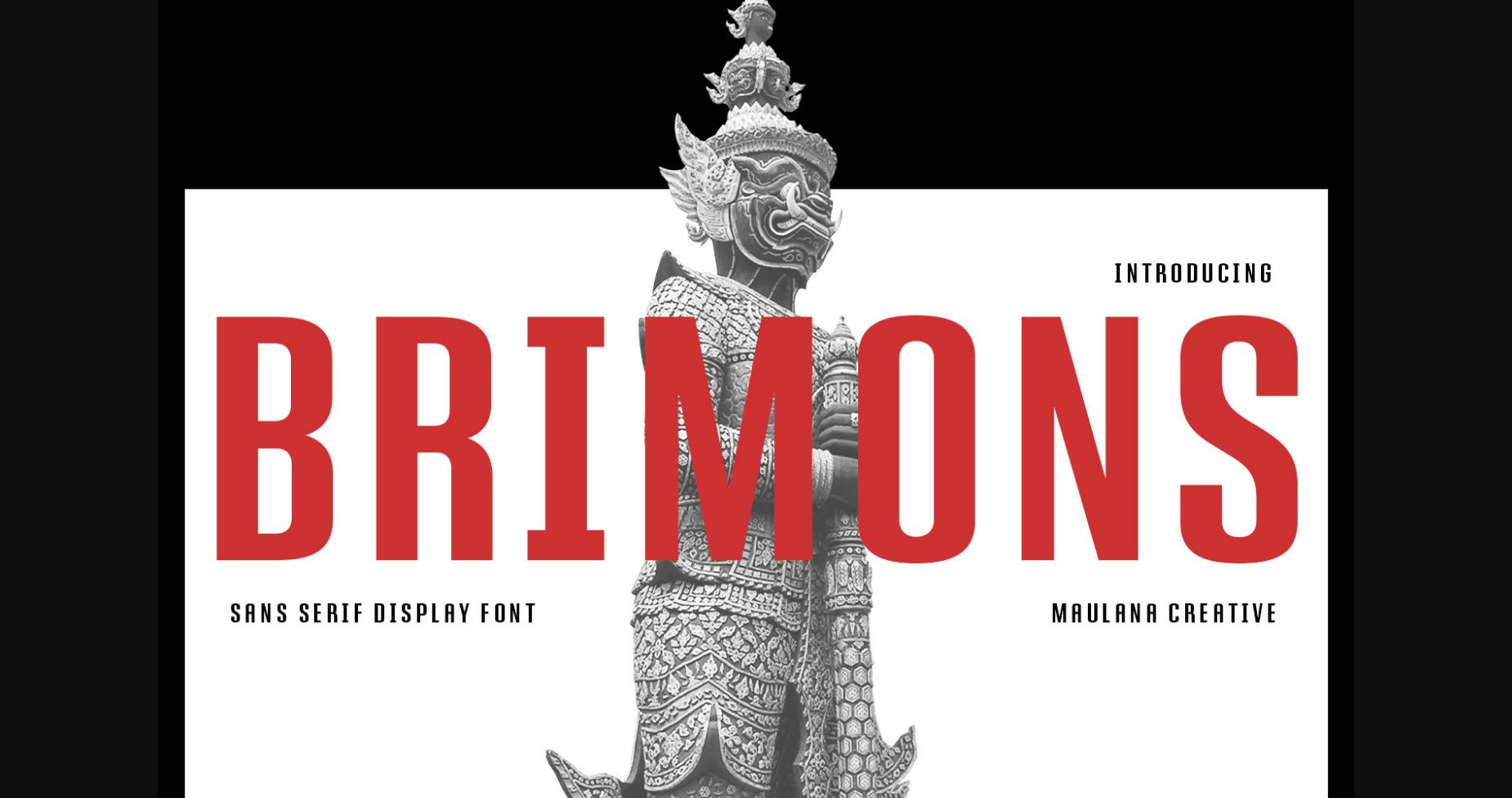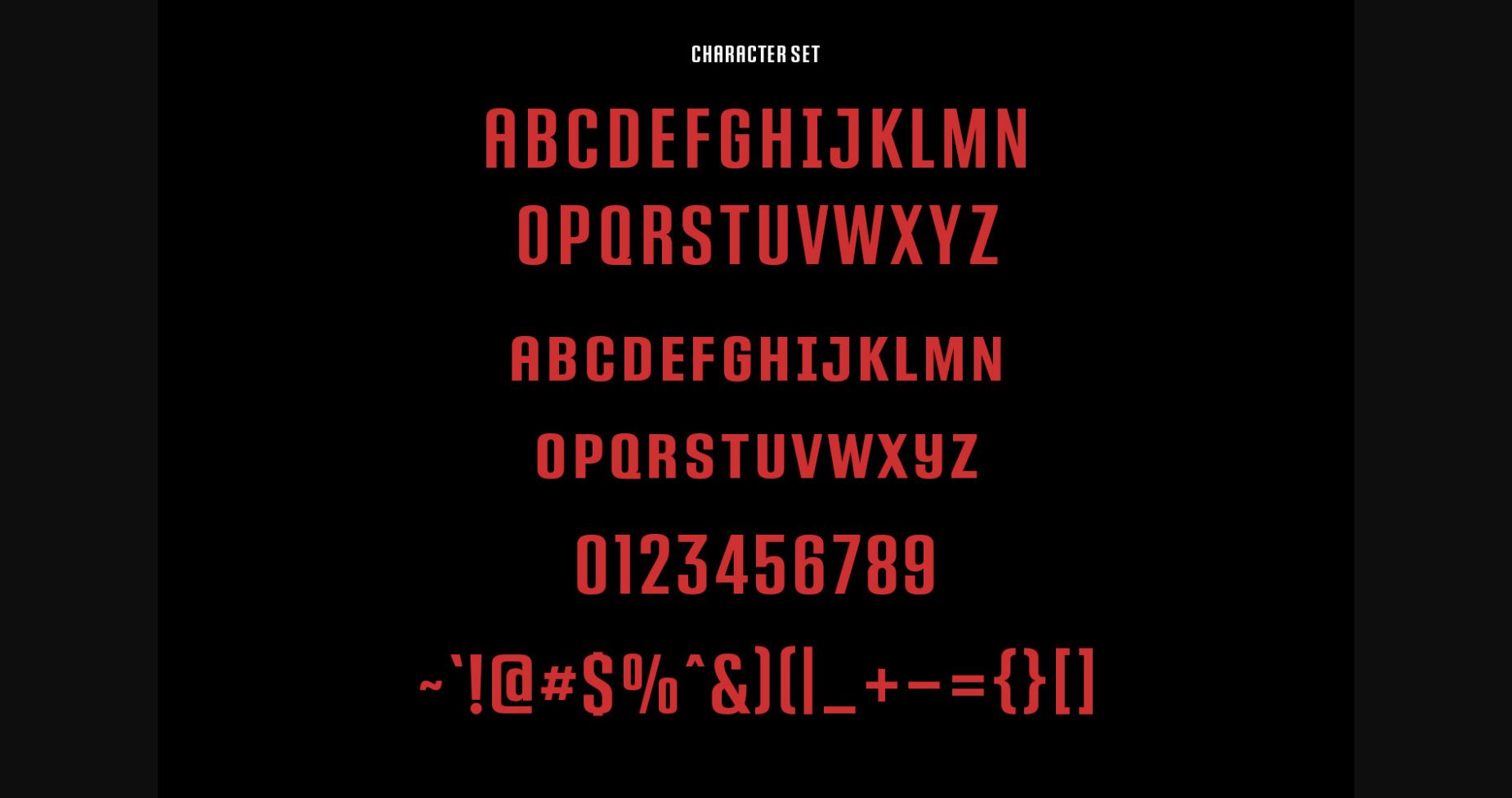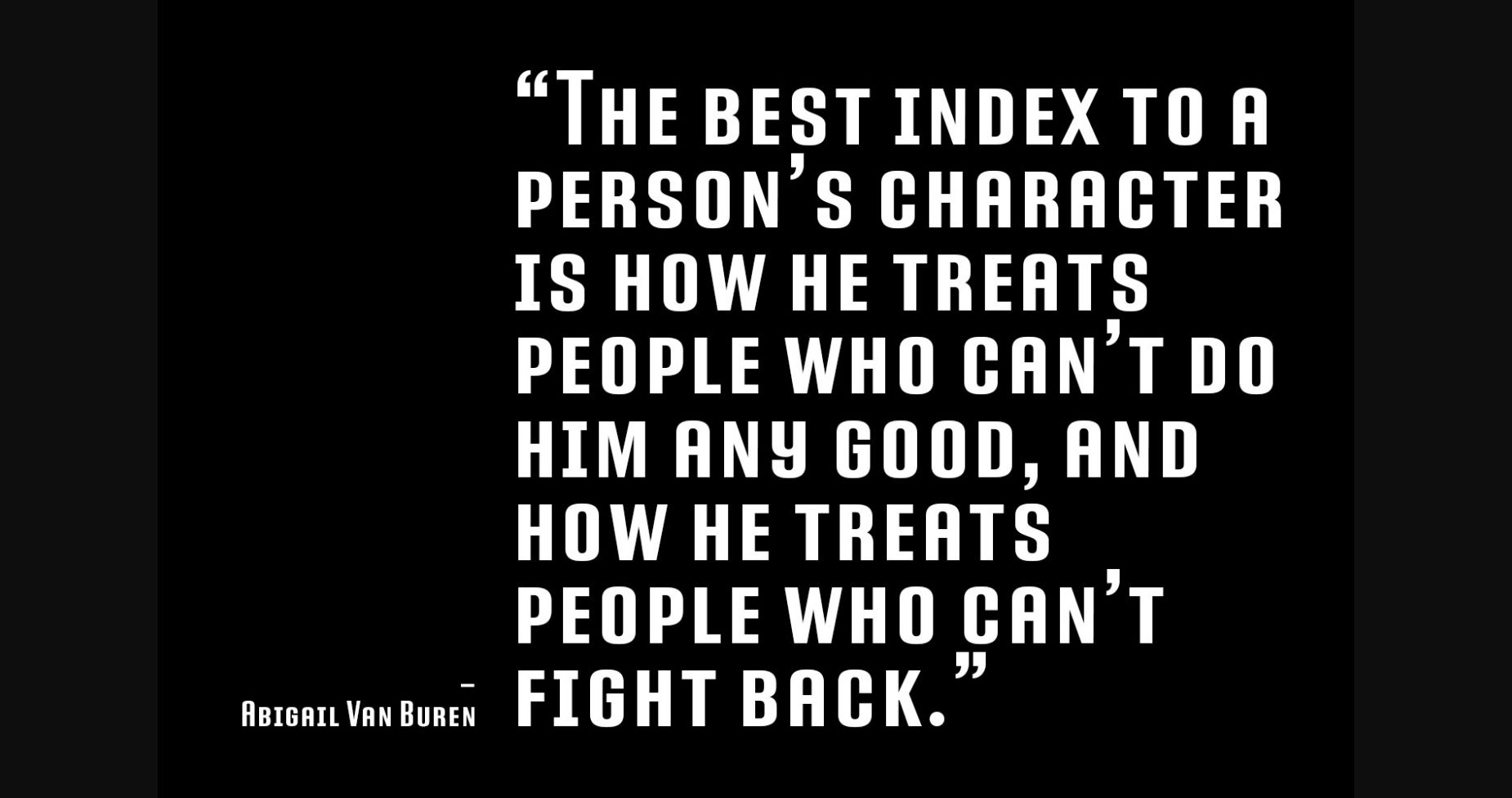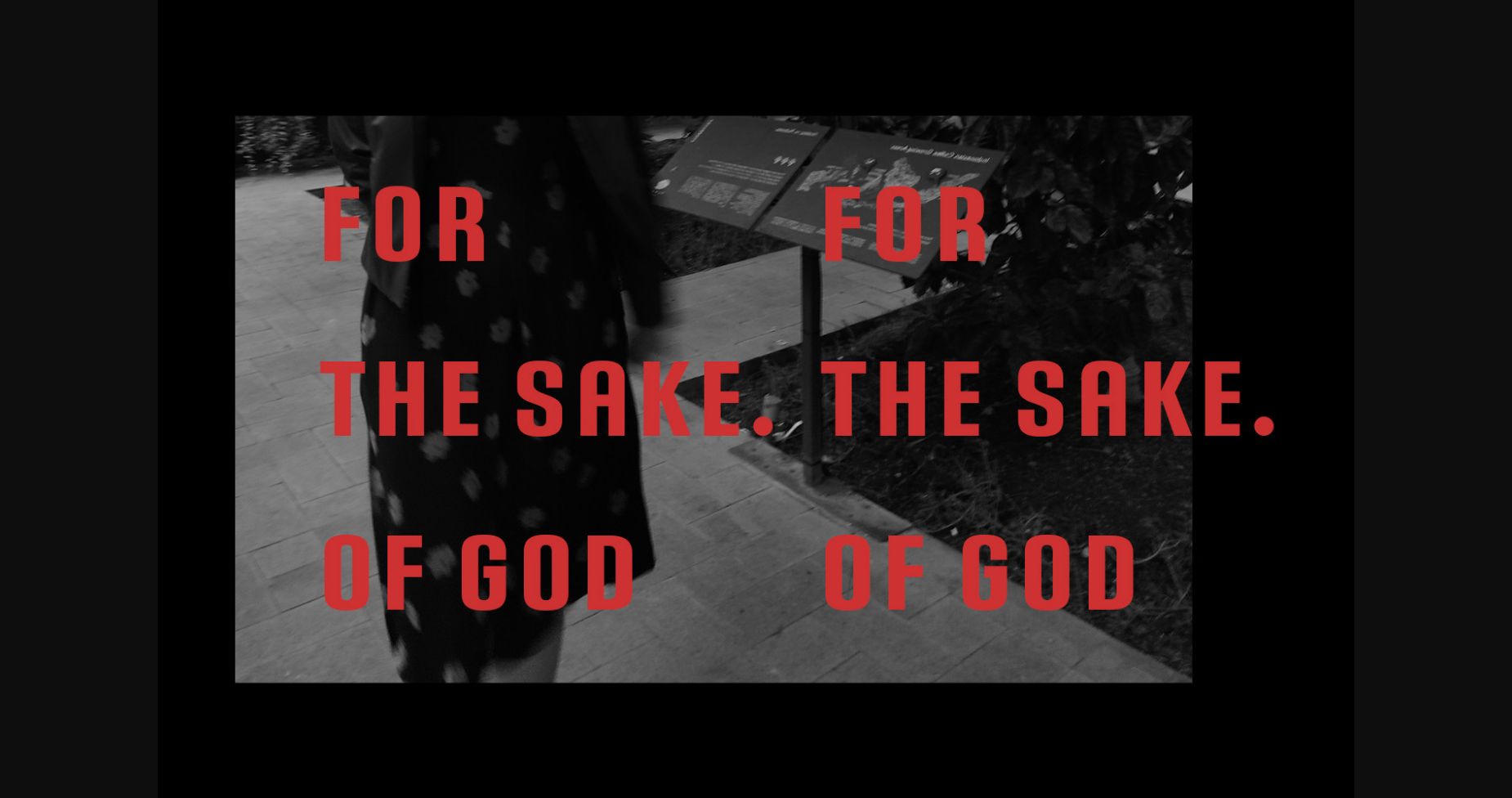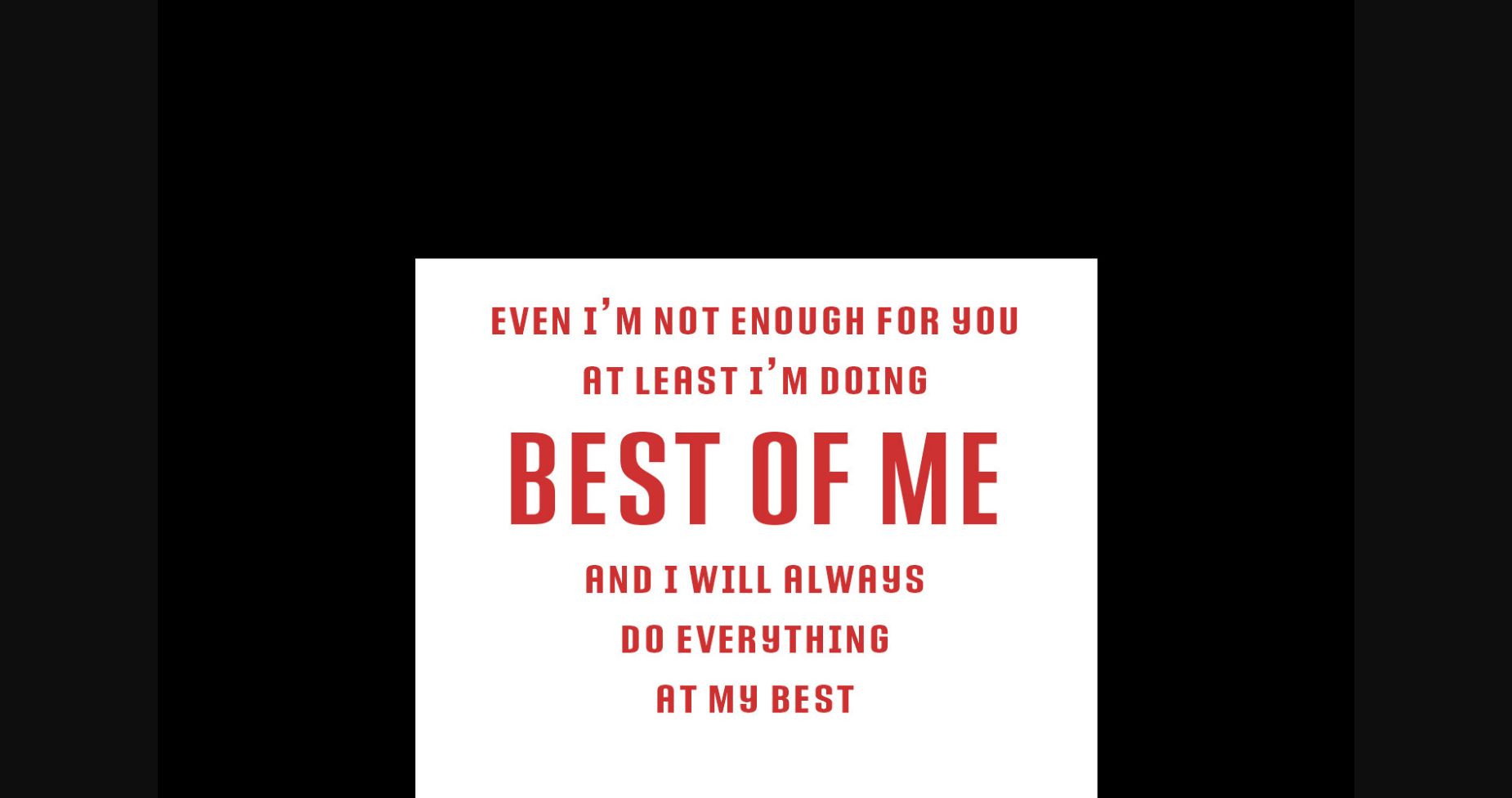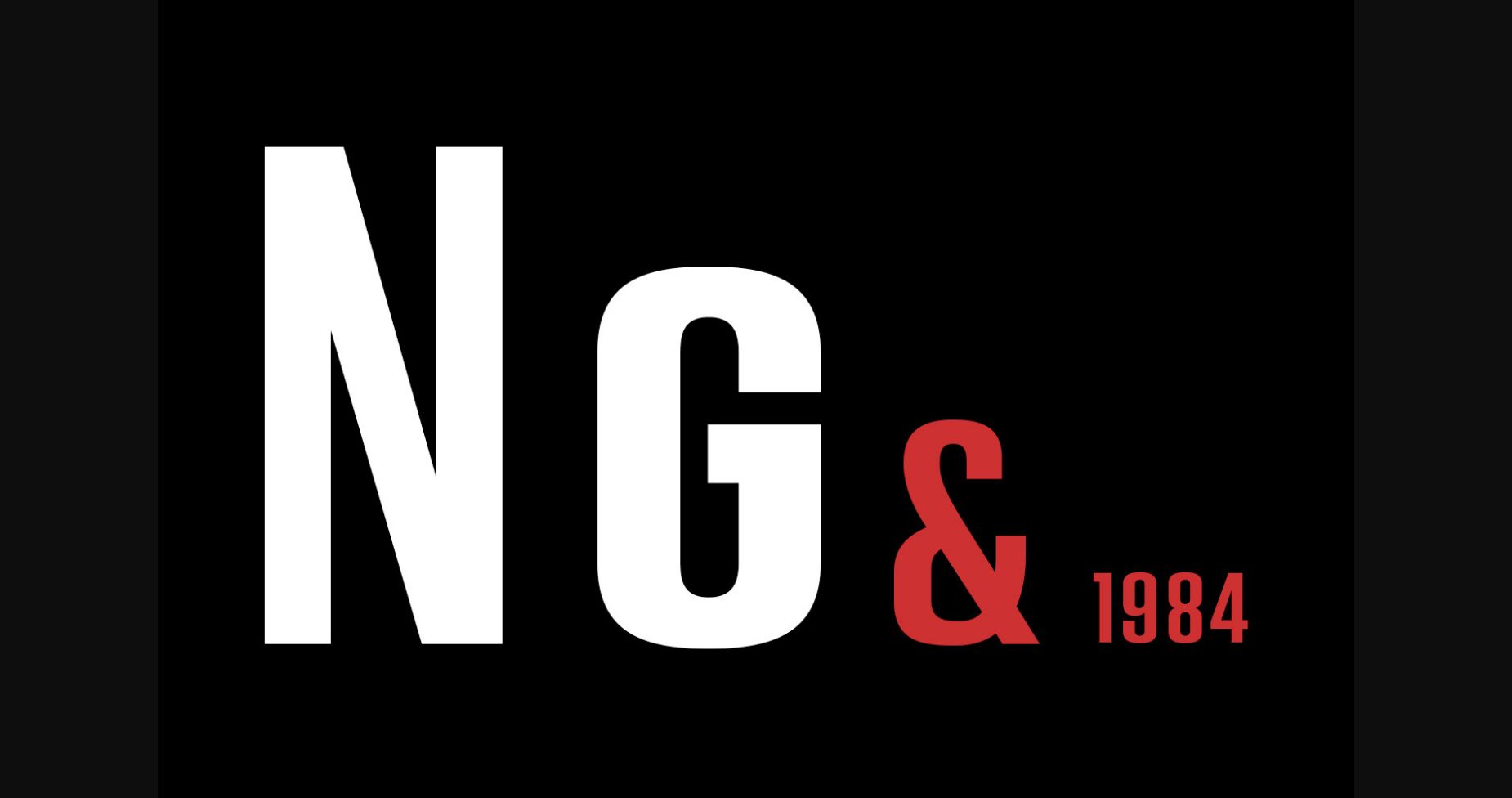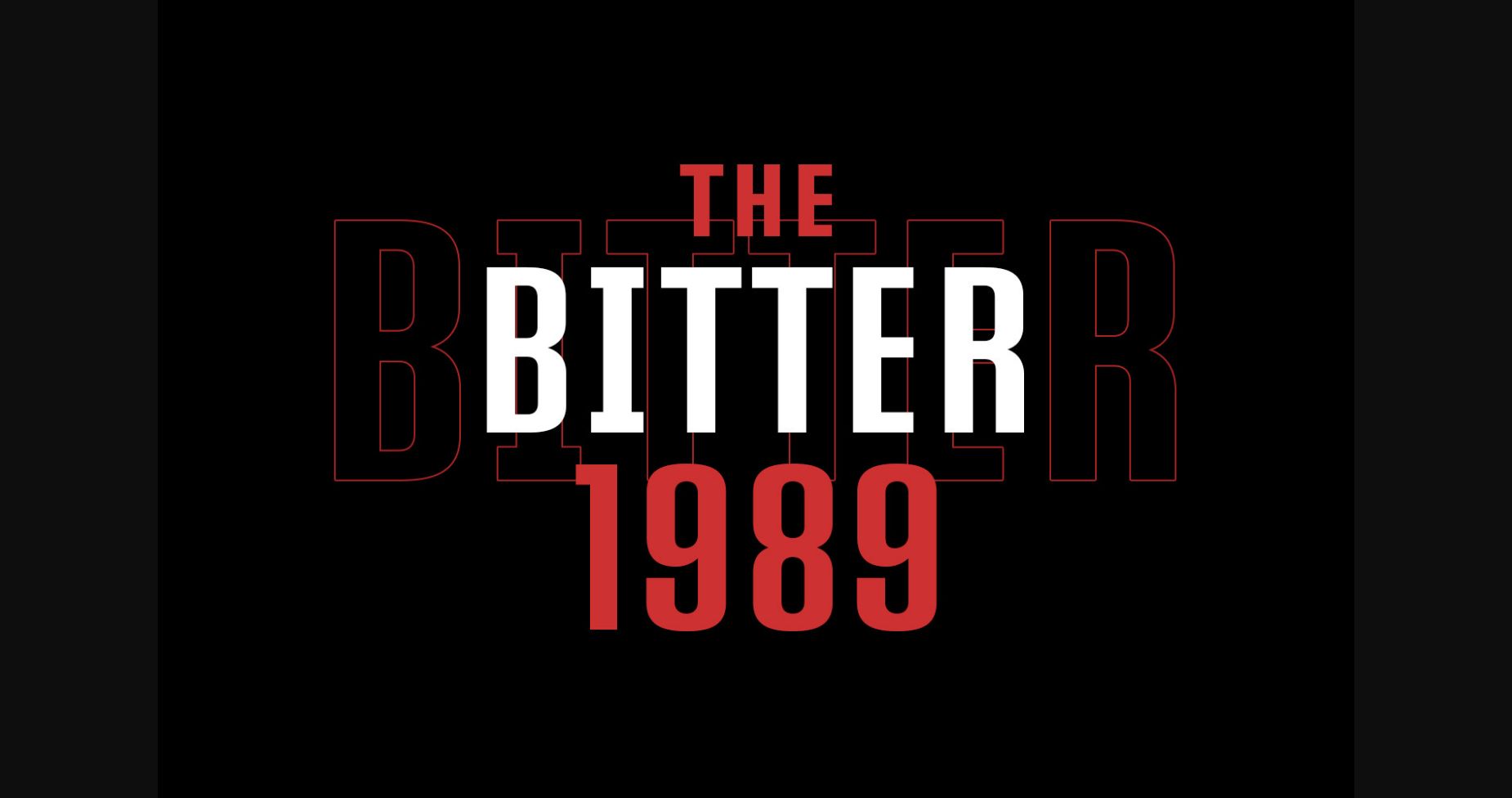
Brimons Font
About Brimons Font
Brimons is a condensed retro sans serif font. Use it for product packaging, branding, or other projects that need bold and daring typography!